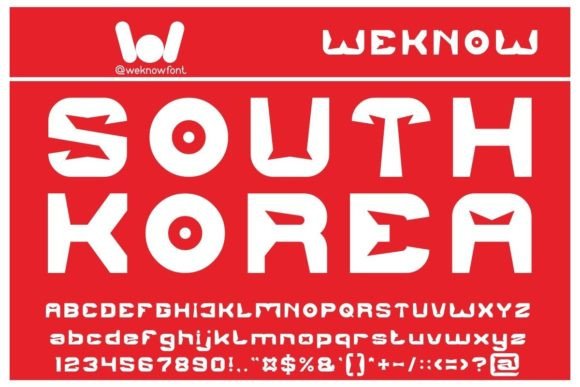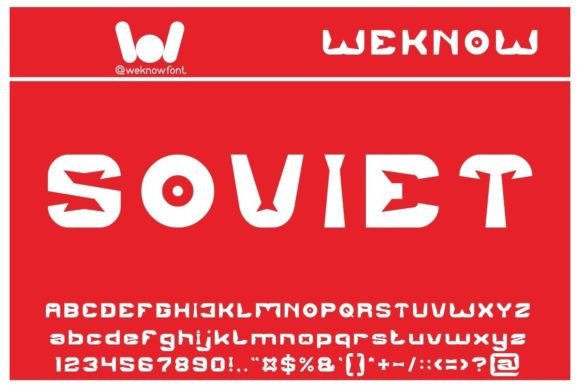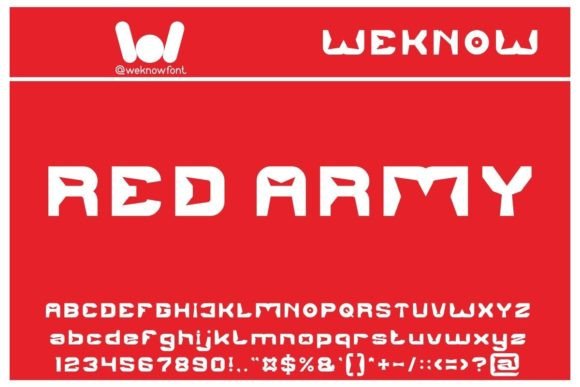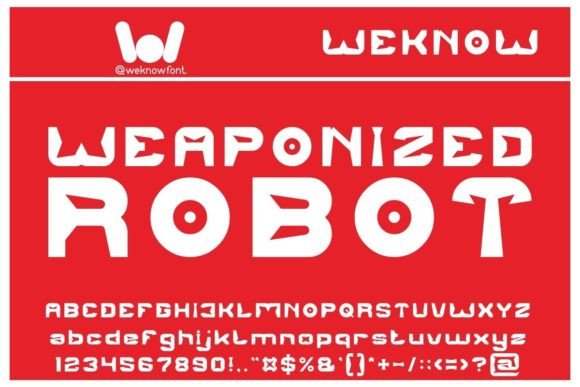
Introduction to Mission to Mars Font
Have you ever found yourself staring at a blank canvas, waiting for inspiration to strike? It’s that moment of creative paralysis when you desperately need a spark to ignite your imagination. For designers, this is often the moment when a new font can be the difference between a mediocre and an outstanding design. And that’s where the Mission to Mars Font comes in – a trendy and cool display font that’s about to revolutionize your creative projects.
With its strong techno-vibe, Mission to Mars Font is the perfect design resource for any project that needs a modern touch. Whether you’re working on a futuristic sci-fi poster, a cutting-edge tech startup’s branding, or a creative campaign for a new product launch, this high-quality font is sure to make your design stand out.
Key Features of Mission to Mars Font
- High-quality design resource suitable for creative projects, including graphic design, digital art, and more.
- Features a unique, out-of-this-world design with a transparent background, allowing for versatile use in different design contexts.
- Includes a range of characters, including uppercase and lowercase letters, numbers, and special symbols, making it a comprehensive design resource.
- Designed to be highly legible and readable, making it an ideal choice for titles, headings, and other text-based elements in creative projects.
Honest Review: Mission to Mars Font
I recently stumbled upon the Mission to Mars Font while searching for a design resource to enhance my creative project. I must say, I was impressed by its unique style and versatility.
- ✨ The font’s design is a perfect blend of futuristic and retro elements, making it an excellent choice for projects that require a space-age vibe.
- ✨ The high-quality design ensures that the font looks great on various mediums, from digital screens to printed materials.
- ⚠️ The font only comes in a limited number of weights and styles, which might not be suitable for projects that require a wide range of typography options.
- ⚠️ The font’s transparent background might not work well with certain design elements or color schemes.
Overall, I’m quite impressed with the Mission to Mars Font. It’s a great design resource for creative projects that require a unique and futuristic look. While it has some limitations, its high-quality design and free download make it a great choice for designers on a budget.
The Mission to Mars Font is ideal for a wide range of creative projects, including: science fiction themes, space exploration designs, futuristic logos, and more. Its unique style and transparent background make it a popular choice among designers.
Can I use the Mission to Mars Font for a creative project that’s not space-themed?
While the Mission to Mars Font was designed with space-themed projects in mind, its unique and futuristic style makes it suitable for a wide range of creative projects. Feel free to experiment with the font in your design and see how it can enhance your project’s overall aesthetic.